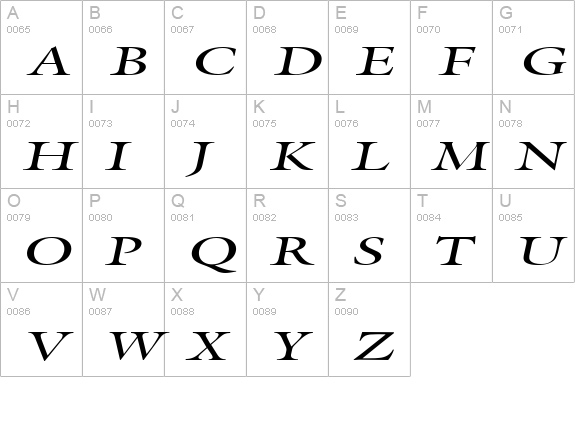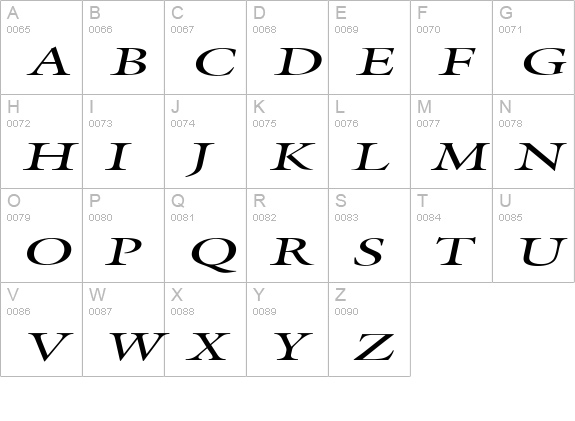
Galant Extended Italic is a distinctive, extended-width, italic variant in the Galant typeface family \xE2\x80\x94 well suited to design and typography projects.
Galant Extended Italic font is an elegant and sophisticated typeface that adds a touch of grace to any design project. Its extended and italicized form exudes a sense of refinement, making it perfect for creating eye-catching headlines, logos, and branding materials. With its sleek and flowing letterforms, Galant Extended Italic font is versatile and adaptable, making it suitable for a wide range of design applications. Whether you're designing a website, a magazine layout, or a corporate presentation, this font will elevate your design to new heights. The free availability of Galant Extended Italic font at FontsMarket.com makes it even more appealing. As a designer, you can now enjoy the beauty and elegance of this font without any cost. Simply visit FontsMarket.com, download the font, and start using it in your next design project. The attention to detail in Galant Extended Italic font is evident in its carefully crafted curves and graceful lines. Each letter is meticulously designed to create a harmonious and balanced composition, ensuring that your typography stands out with a touch of class. Whether you're looking to add a touch of sophistication to your website, give your logo a refined edge, or create stylish and elegant branding materials, Galant Extended Italic font is the perfect choice. Its timeless beauty and versatility will make your designs truly captivating. In conclusion, Galant Extended Italic font is a free typeface that offers a perfect blend of elegance and versatility. Its extended and italicized form adds a touch of refinement to any design project, making it ideal for creating stunning headlines, logos, and branding materials. Download this font for free at FontsMarket.com and enjoy the beauty and elegance it brings to your designs.